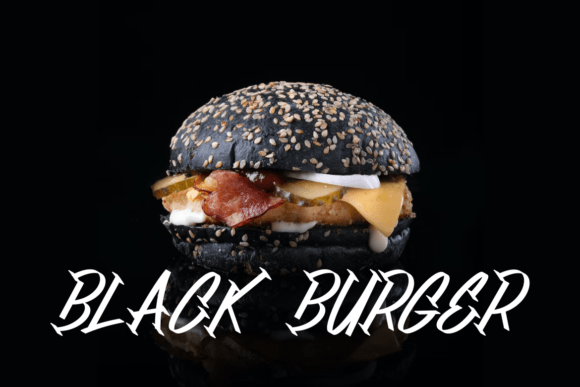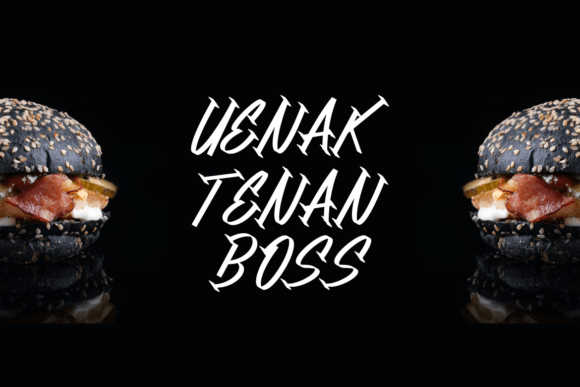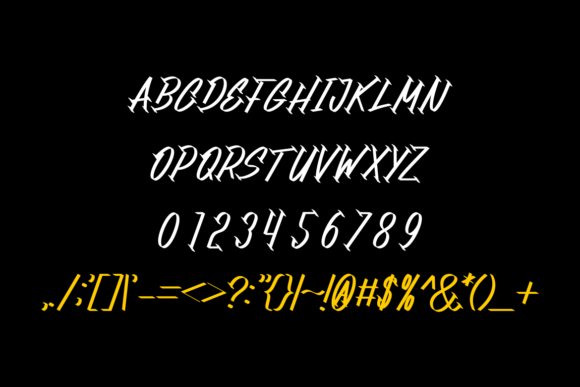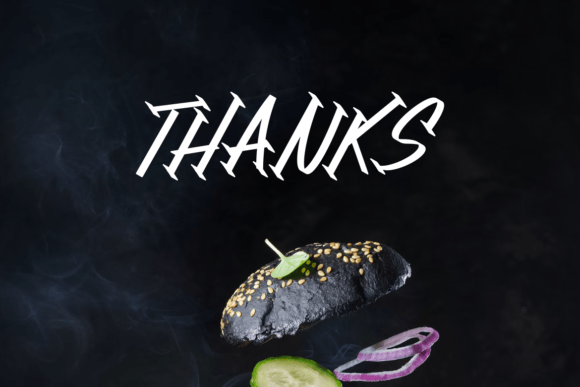
Introduction to Mangkle Font
As a designer, there’s nothing quite like the thrill of bringing a creative project to life. You’re standing in front of a blank canvas, your mind racing with ideas, and your imagination soaring. But, sometimes, it’s the smallest details that can make all the difference. That’s where the Mangkle Font comes in – a free, high-quality, graffiti-style handwritten font that’s about to revolutionize your design game.
Whether you’re working on a logo, flyer, or social media graphic, the Mangkle Font is the perfect design resource to add a touch of edginess to your work. With its three variations – solid, outline, and shadow – you can create an authentic graffiti look that’s sure to grab attention. And, with a transparent background option, you can easily integrate it into your design without any hassle.
What makes the Mangkle Font truly valuable for designers is its versatility. It’s perfect for craft designs, thanks to its fixed kerning in the outline version, and it’s completely free to download. So, what are you waiting for? Get ready to unleash your creativity and take your designs to the next level with the Mangkle Font!
- High-quality, professional font suitable for creative projects
- Transparent background, making it ideal for designs that require a clean and minimalist aesthetic
- Designed to be highly legible, with a clear and easy-to-read font style that works well in both print and digital applications
Honest Review: Mangkle Font
As a designer, I’m always on the lookout for high-quality fonts to elevate my creative projects. Recently, I came across the Mangkle Font, and I’m excited to share my thoughts with you.
What works well: ✨ The Mangkle Font is available for free download, which is a huge plus for designers on a budget. The font is also highly customizable, making it perfect for designers who want to add a unique touch to their work. The transparent background option is another feature that I appreciate, as it allows for seamless integration with other design elements.
What doesn’t work well: ⚠️ While the Mangkle Font is a great resource, it may not be suitable for all design projects. The font’s unique style may not be the best fit for more traditional or conservative designs. Additionally, the font’s character set may not be as extensive as some other fonts on the market.
Overall impression: I’m impressed with the Mangkle Font’s unique style and versatility. While it may not be perfect for every design project, it’s a valuable addition to any designer’s toolkit. If you’re looking for a high-quality, customizable font for your creative projects, the Mangkle Font is definitely worth checking out.
For optimal results, use Mangkle Font in combination with other design elements that complement its unique style. Experiment with different font sizes, colors, and arrangements to achieve the desired effect. With Mangkle Font, the possibilities are endless.
Mangkle Font is perfect for a variety of creative projects, including logos, business cards, brochures, and social media graphics. Its high quality and unique style make it a popular choice among designers and non-designers alike.